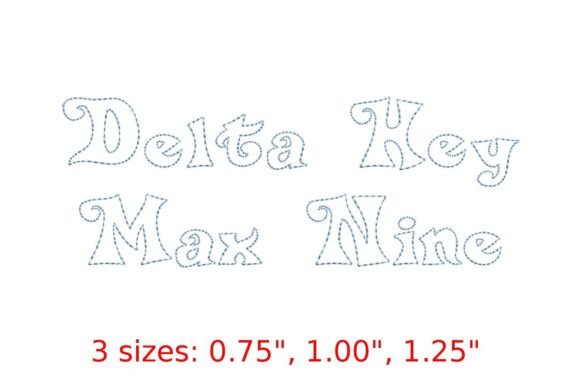
Adventures Bean Stitch Outline Font: A Versatile Choice for Embroidery Enthusiasts
The Adventures Bean Stitch Outline Font is a unique embroidery design that brings a playful and stylized aesthetic to any project. This font features a distinctive bean stitch outline pattern, offering a fresh alternative to traditional embroidery fonts. Its design is both eye-catching and adaptable, making it an appealing option for those looking to add a creative touch to their work.
Why Would Someone Be Interested in the Adventures Bean Stitch Outline Font?
For individuals passionate about embroidery, the Adventures Bean Stitch Outline Font offers several compelling reasons to consider it. First, its fun and cool vibe appeals to those who enjoy adding personality and character to their projects. Whether used for personal items like clothing or accessories, or for commercial purposes such as signage and promotional materials, this font can elevate the visual appeal of any design.
Additionally, the font's versatility makes it a valuable asset for creators who want to experiment with different styles and themes. The playful nature of the bean stitch design can be particularly effective in children’s products, novelty items, or even custom gifts. It adds a whimsical element that can make a project stand out in a crowded market.
Benefits of Using the Adventures Bean Stitch Outline Font
The availability of three different sizes also enhances its usability. Creators can choose the most suitable size based on the project's scale and the desired impact of the design. This flexibility allows for greater customization and ensures that the font can be adapted to various applications, from small personalized items to larger-scale displays.
Another advantage is the font's ability to add a distinct flair to designs. The bean stitch outline provides a unique texture and depth that sets it apart from more conventional embroidery fonts. This can help designers create visually striking pieces that capture attention and leave a lasting impression.
Considerations and Tradeoffs
While the Adventures Bean Stitch Outline Font has many strengths, there are some considerations to keep in mind. One potential tradeoff is its suitability for certain types of projects. For instance, the bold and textured nature of the font may not be ideal for intricate or detailed designs where fine lines and subtle details are important. In such cases, a more refined or minimalist font might be a better choice.
Additionally, the font's unique style may not align with all design preferences. Some users might find the bean stitch pattern too busy or overwhelming, especially when applied to smaller or more delicate items. It's important to evaluate whether the font's aesthetic complements the intended use case and overall design vision.
Situations Where the Font May Be a Strong Fit
The Adventures Bean Stitch Outline Font is particularly well-suited for projects that benefit from a playful and vibrant aesthetic. This includes items such as children’s clothing, party decorations, and custom apparel. Its bold and colorful design can make these items more engaging and appealing, especially to younger audiences.
It is also a great choice for novelty and promotional items. Businesses looking to create eye-catching signage or branded merchandise can leverage the font's unique style to differentiate their products from competitors. The font's visual impact can help reinforce brand identity and create a memorable impression.
For hobbyists and DIY enthusiasts, the font offers an opportunity to explore new creative directions. Its adaptability allows for experimentation with different color combinations and placement techniques, encouraging users to push the boundaries of their embroidery skills.
When to Consider Alternatives
While the Adventures Bean Stitch Outline Font is a strong option in many scenarios, there are situations where alternatives may be worth considering. For example, if the design requires a more elegant or sophisticated look, a classic serif or sans-serif font might be more appropriate. These fonts provide a cleaner and more refined appearance that can suit formal or professional settings.